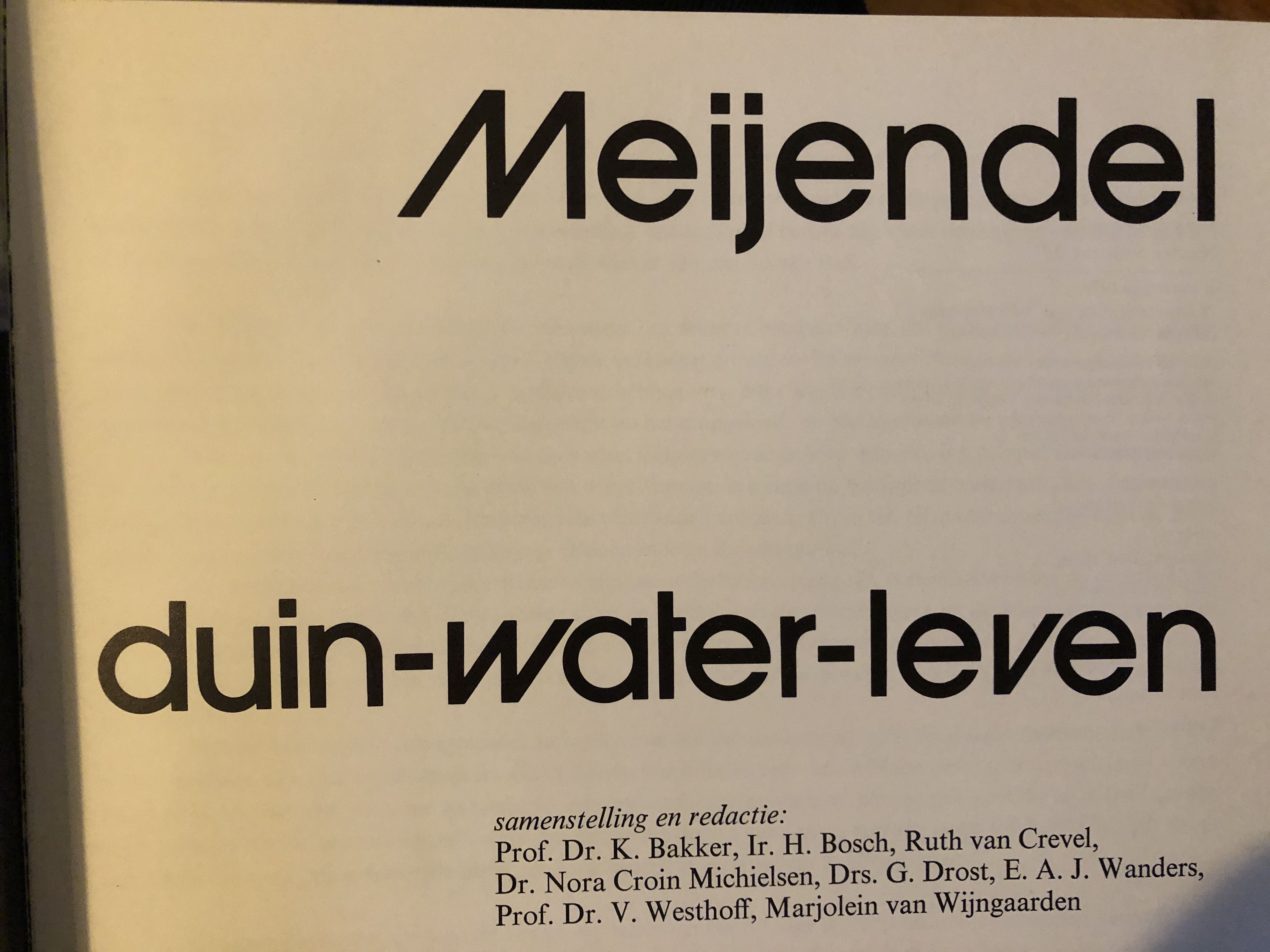
I really like the sans font. Anyone recognize this font?
ITC Avant Garde
thanks Typehuile. Any idea how you can realize the skewness as we see above? is it just italic, or something else.
They are designed as alternates in the OpenType or TrueType font. You can see all of the glyphs in all of the fonts in the AG family here: https://www.myfonts.com/fonts/itc/avant-garde-gothic?tab=glyphs